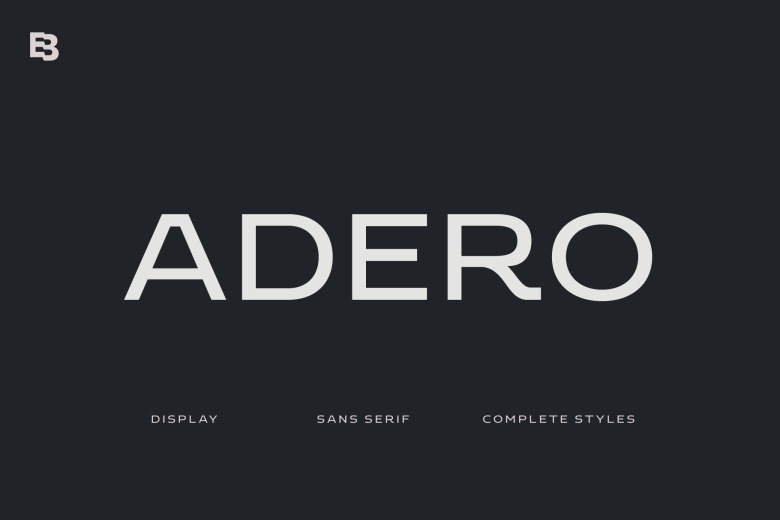
Adero Font
Adero is a Display Font Family. Typing on modern and futuristic flavours, Adero crafted in wide proportion, large x-height with versatile letterform. Perfect for sci-fi themes and also broad design purposes. Adero consists of 9 weights from Thin to Black with each matching Oblique.
Adero Display Font Family